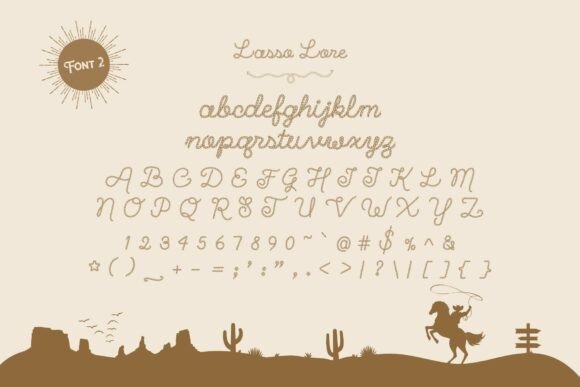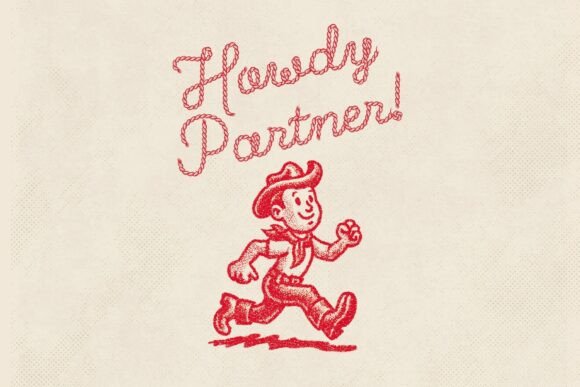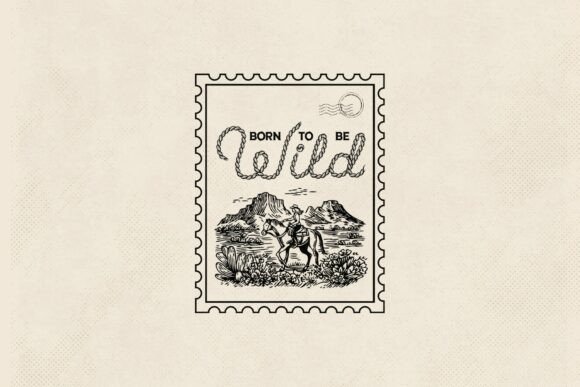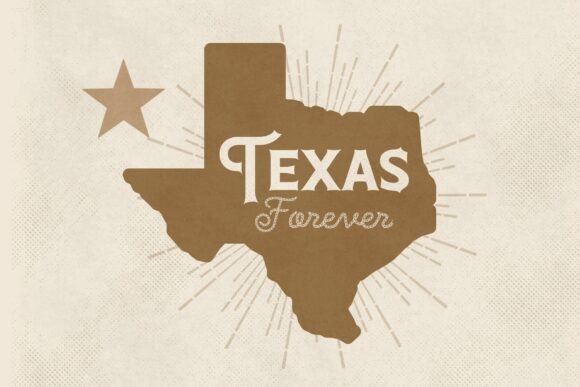
Introduction to Lasso Lore Font Font
Fonts play a crucial role in design, and the Lasso Lore Font font is a typeface that brings both character and versatility to any project. Whether you’re working on a branding project, a website, or a print design, the Lasso Lore Font font offers a unique style that can elevate your work.
Saddle up for Lasso Lore, a bold and adventurous rope-inspired typeface that captures the grit, charm, and spirit of the Wild West.
Carefully crafted to mimic the curves and twists of real cowboy lariats, this display font ropes in attention and doesnβt let go Perfect for logos, branding, posters, merchandise, and social media graphics, Lasso Lore adds rustic flair and authentic Western personality to any project.
Key Features of Lasso Lore Font Font
Why Choose Lasso Lore Font Font?
The Lasso Lore Font font is more than just a typeface β it’s a design tool that helps you communicate your message with style and clarity. Its unique character set and versatile design make it suitable for a wide range of applications, from elegant invitations to bold headlines.
With its carefully crafted letterforms and balanced proportions, the Lasso Lore Font font ensures readability and visual appeal across all mediums.
What makes Lasso Lore Font font special?
The Lasso Lore Font font stands out with its unique design, exceptional readability, and versatility across various design applications.